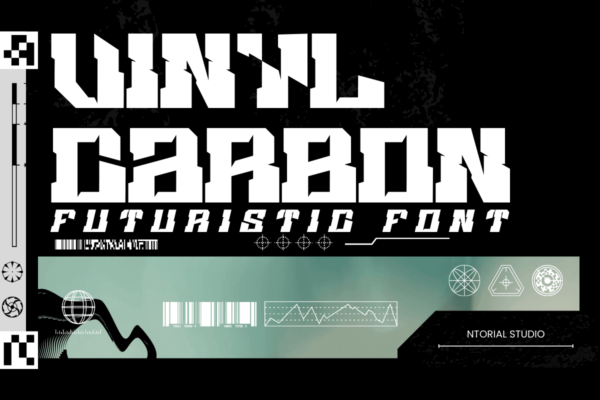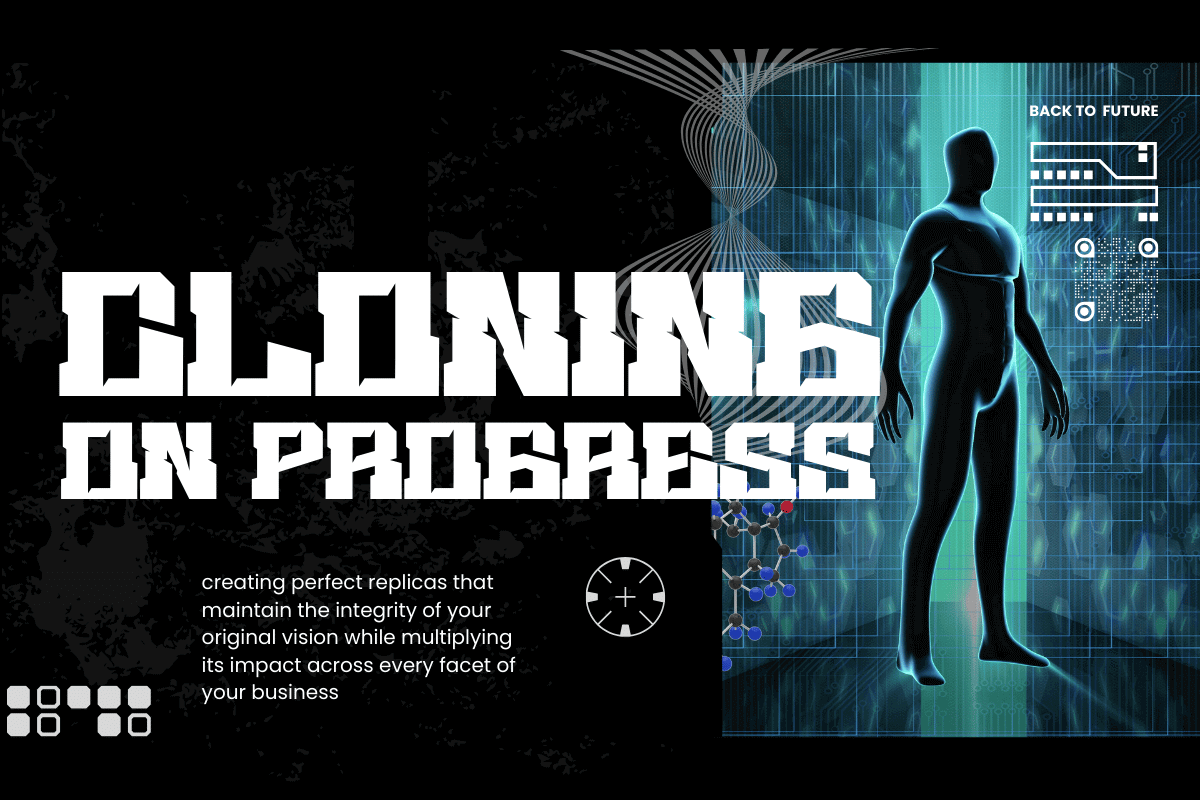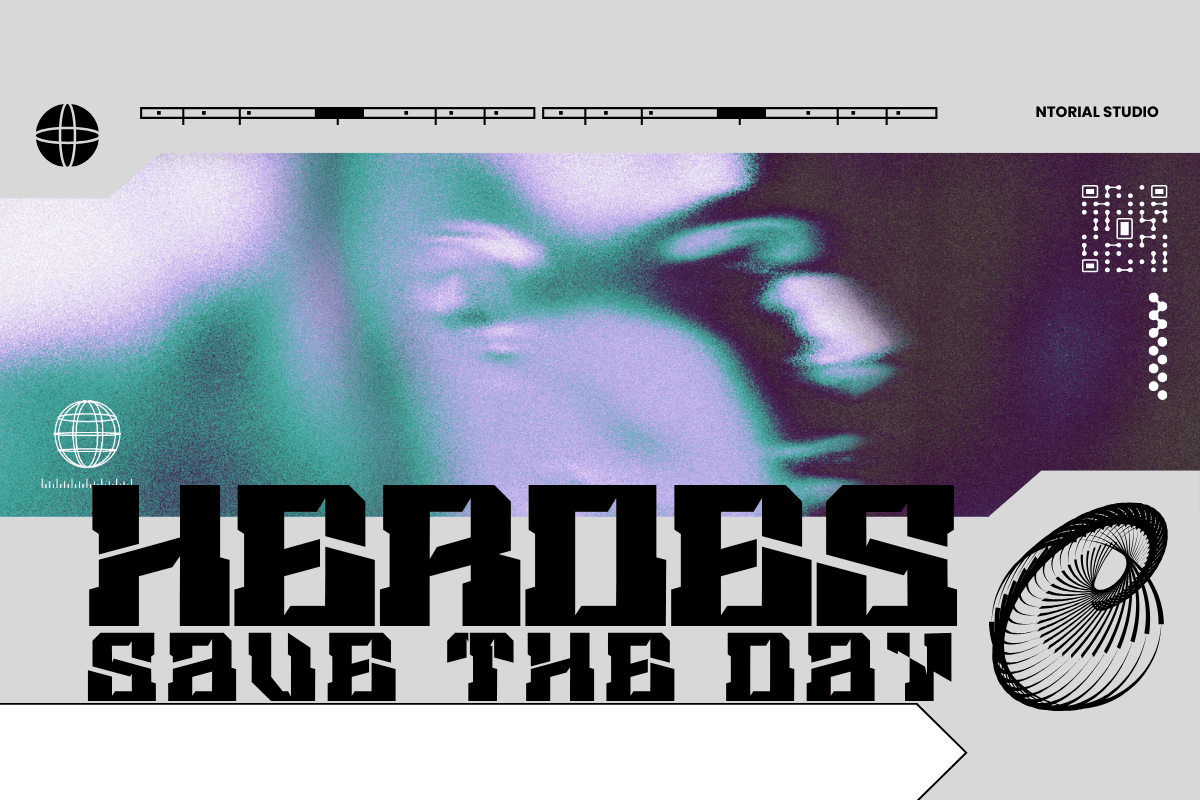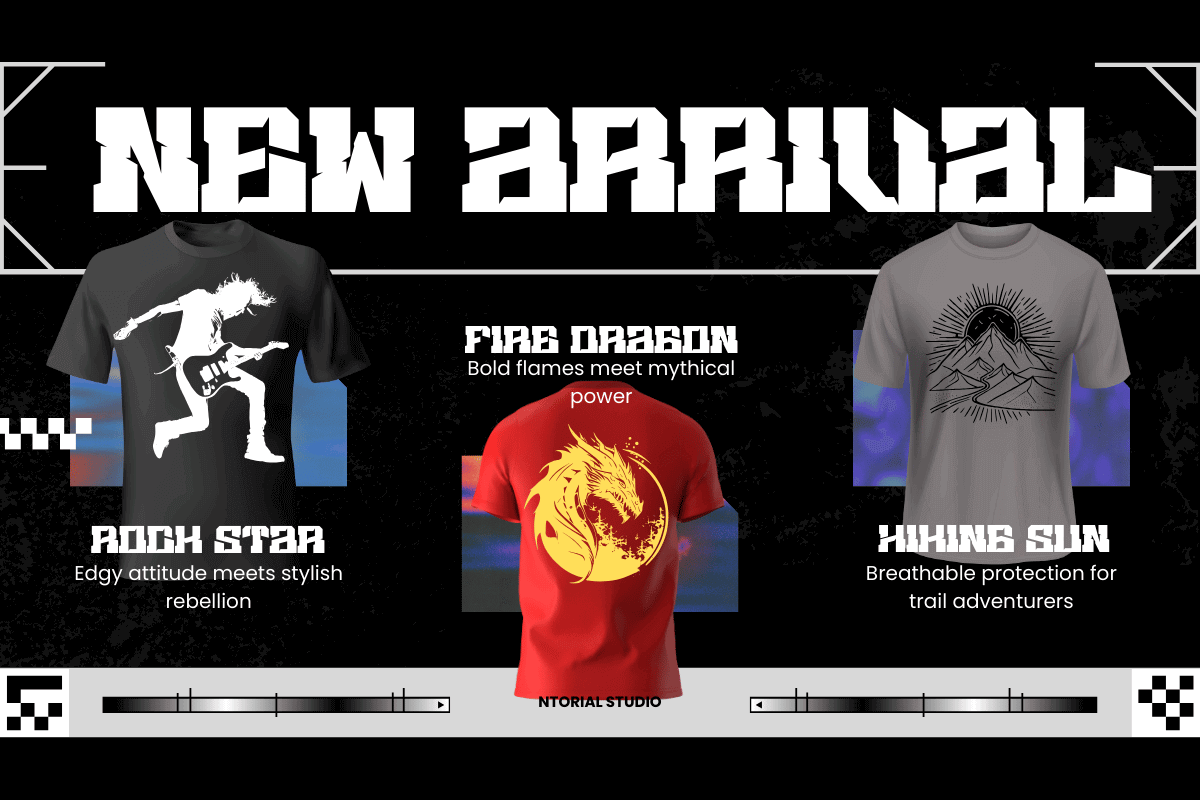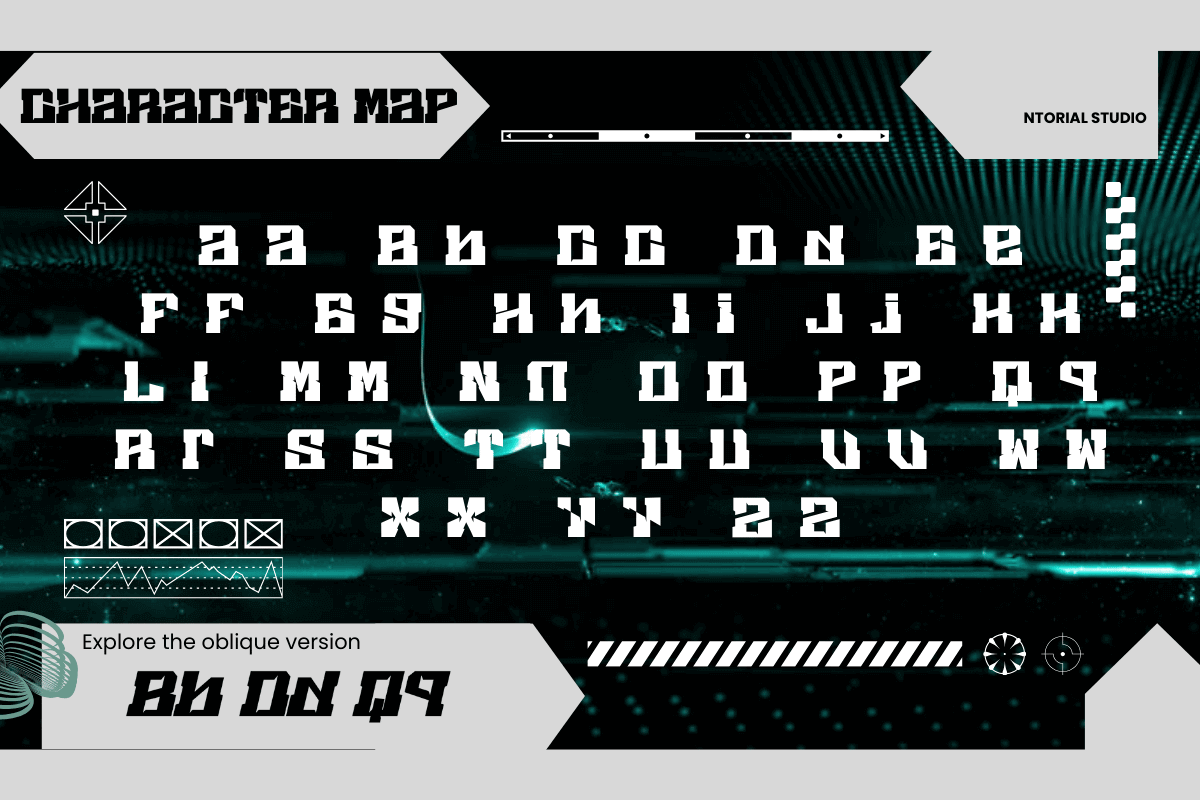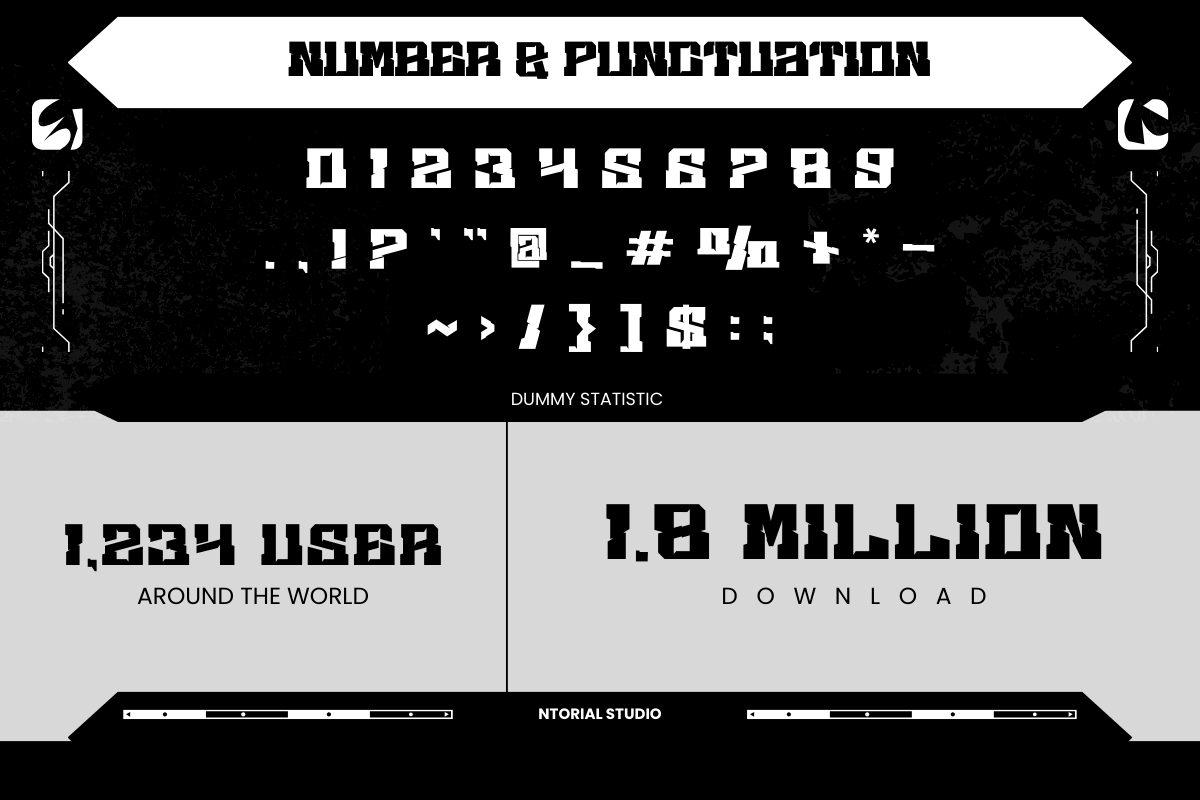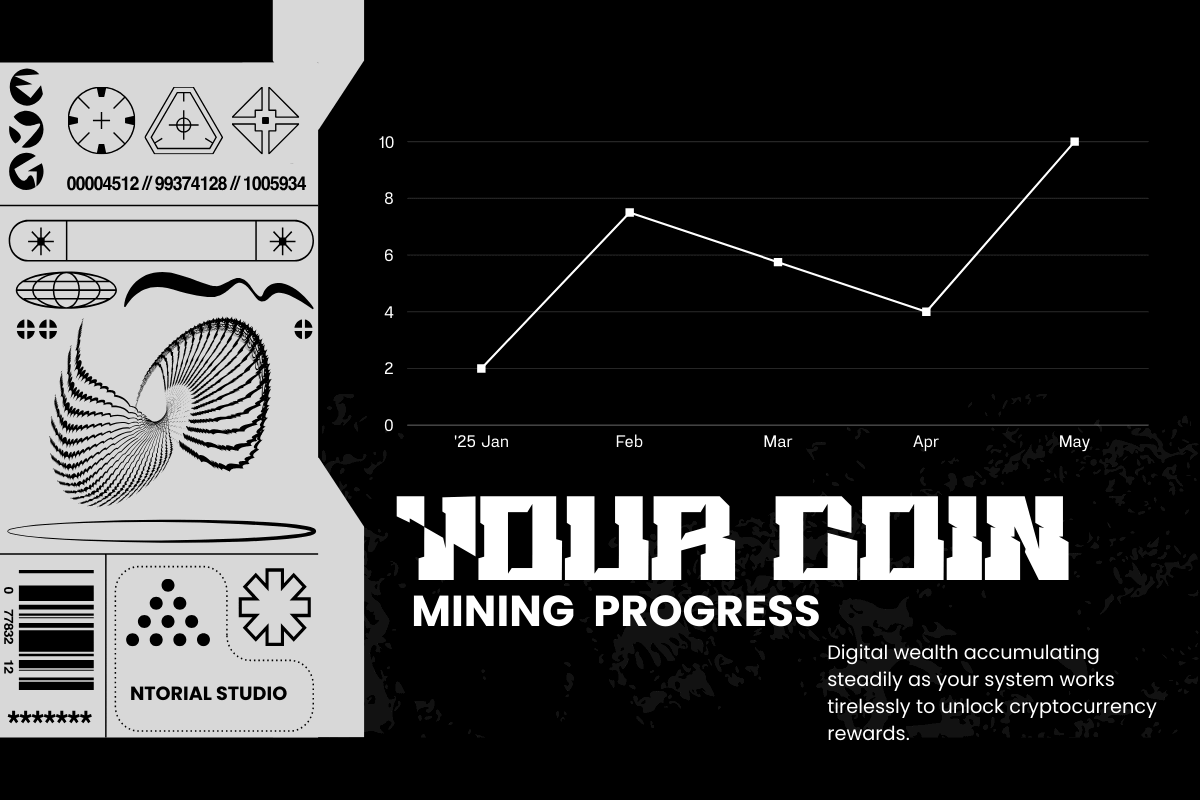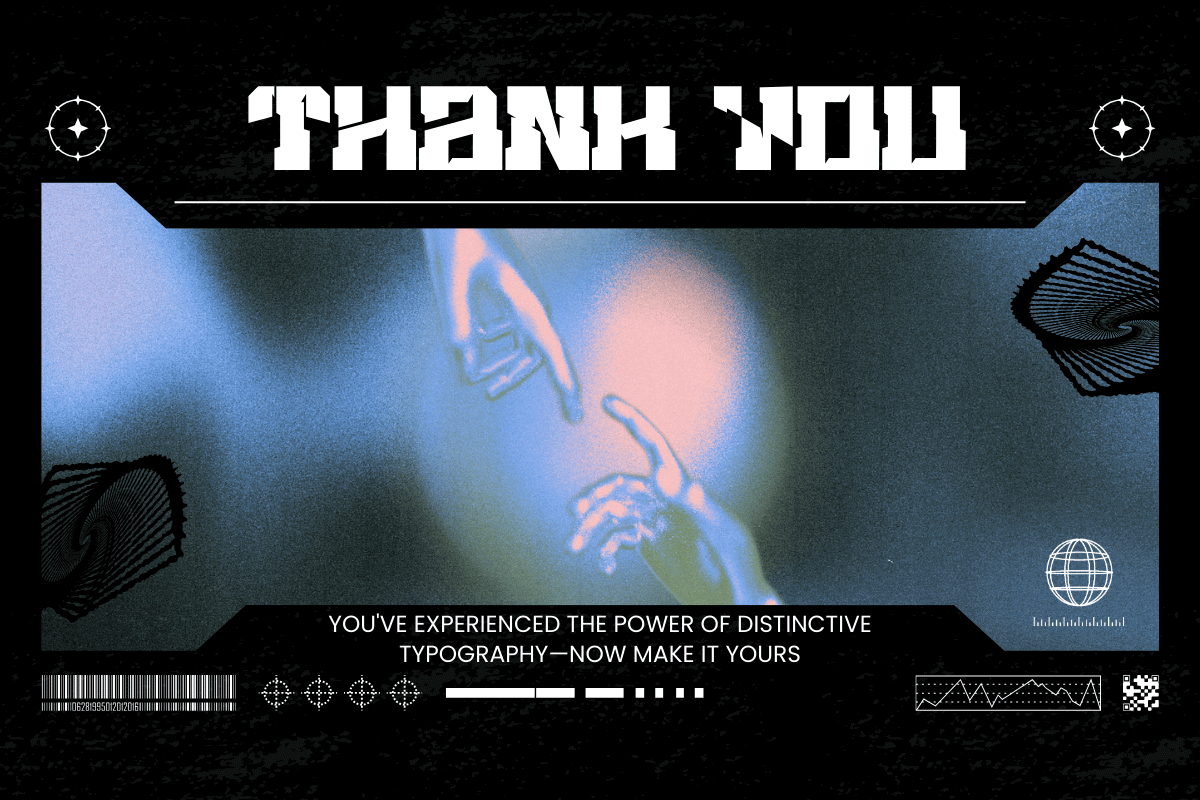
VINYL CARBON is a bold, industrial display font that embodies the essence of cyberpunk and sci-fi aesthetics. This angular, geometric typeface features sharp beveled edges and dimensional letterforms that create a striking three-dimensional effect, perfect for commanding attention in any design.
VINYL CARBON delivers maximum impact with its robust, block-style construction and futuristic character design. The font's distinctive angular cuts and metallic appearance make it ideal for gaming interfaces, movie titles, tech branding, and any project requiring a strong technological presence.
VINYL CARBON includes full set of uppercase and lowercase letters, numerals, symbols and multilingual support.
Perfect for: Gaming logos, movie posters, tech startups, album covers, sci-fi book covers, user interfaces, esports branding, and futuristic design projects.